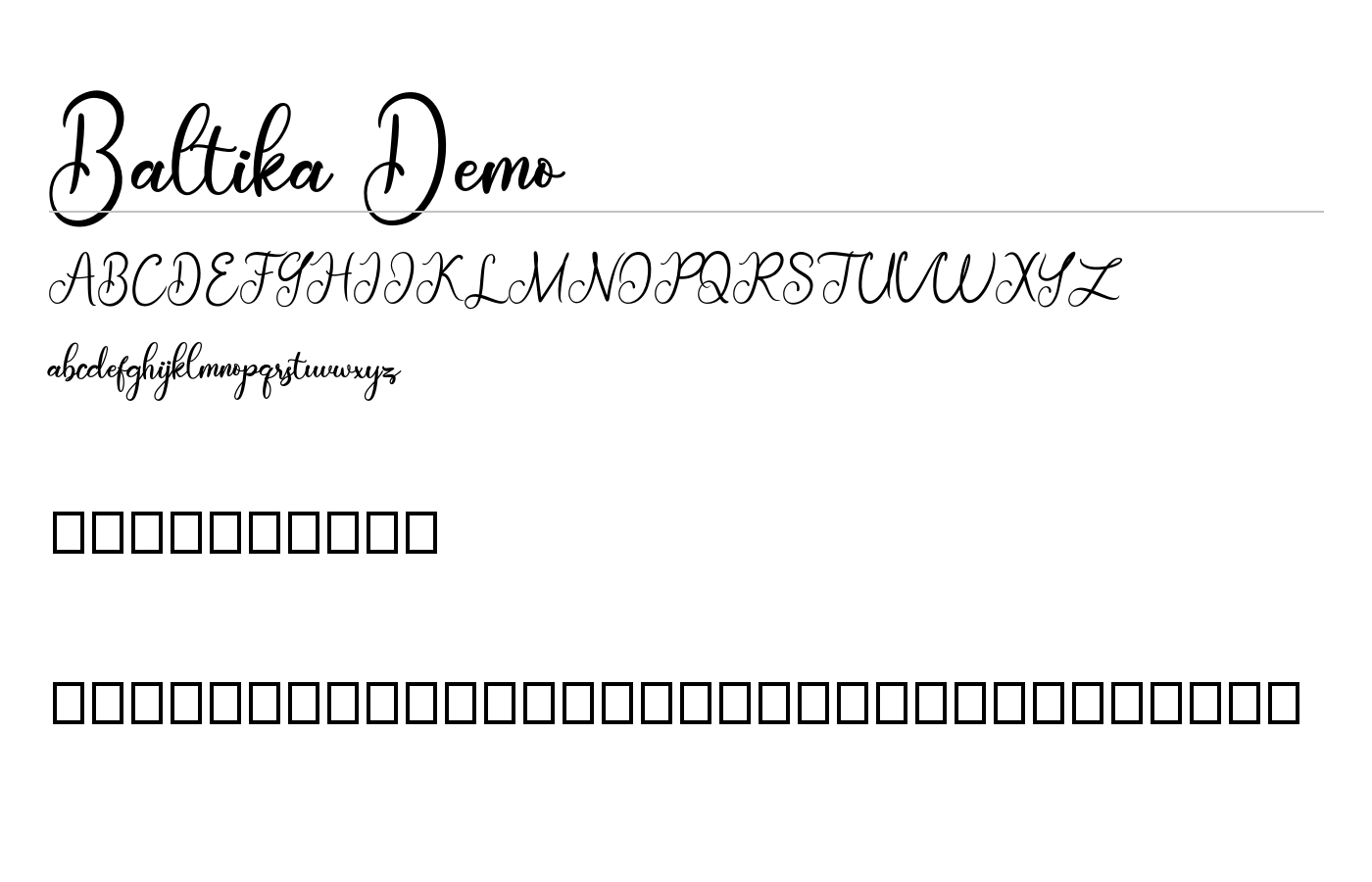
Baltika Demo is a delicate script font with elegant, flowing letterforms that evoke a refined and graceful feel. Its light weight and high contrast strokes give it a sophisticated, handwritten style perfect for invitations, greeting cards, and branding that aims to convey charm and elegance. This font works beautifully in contexts where a personal, stylish touch is desired, especially in headlines and decorative text.
Baltika Demo Font